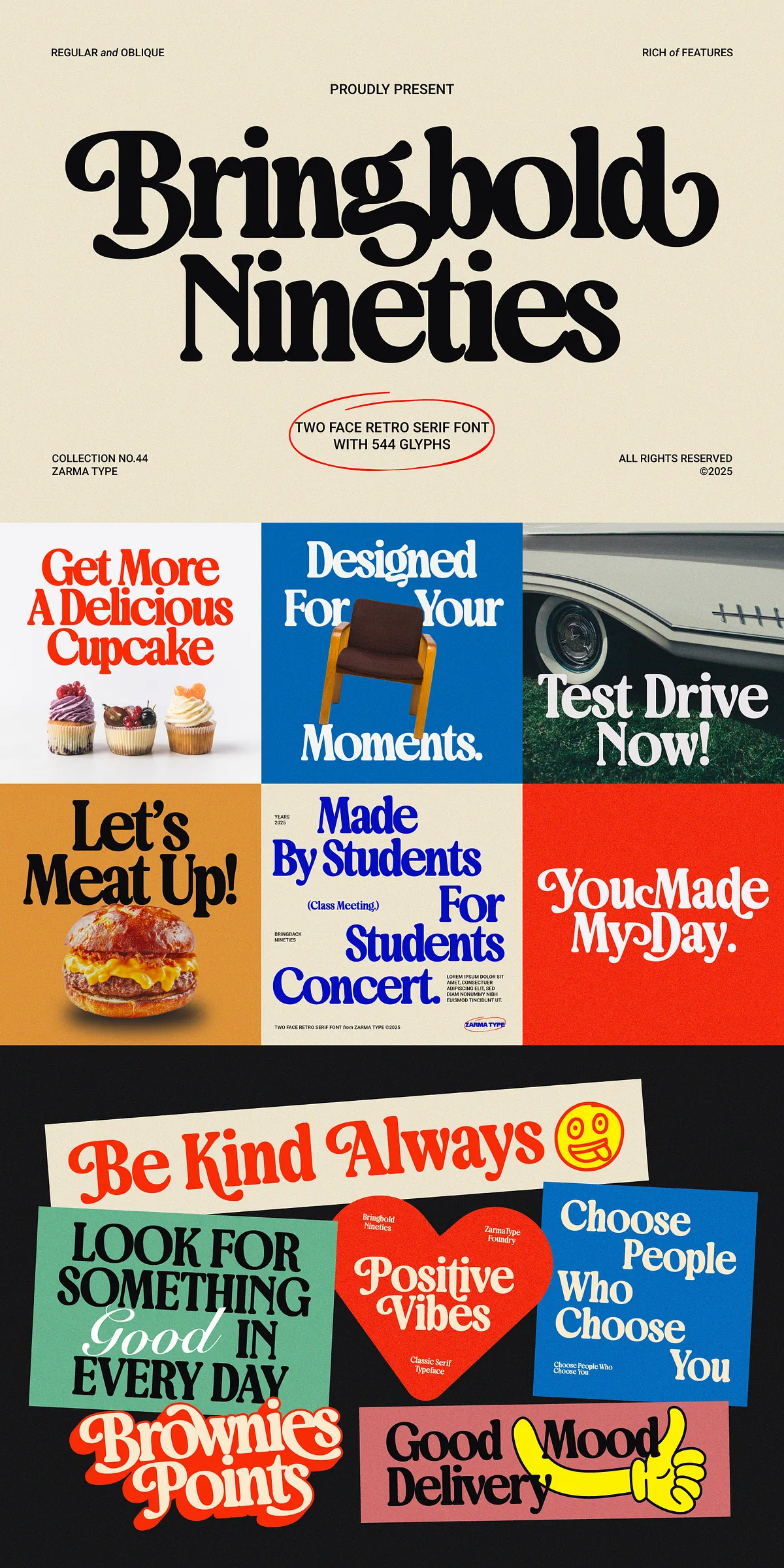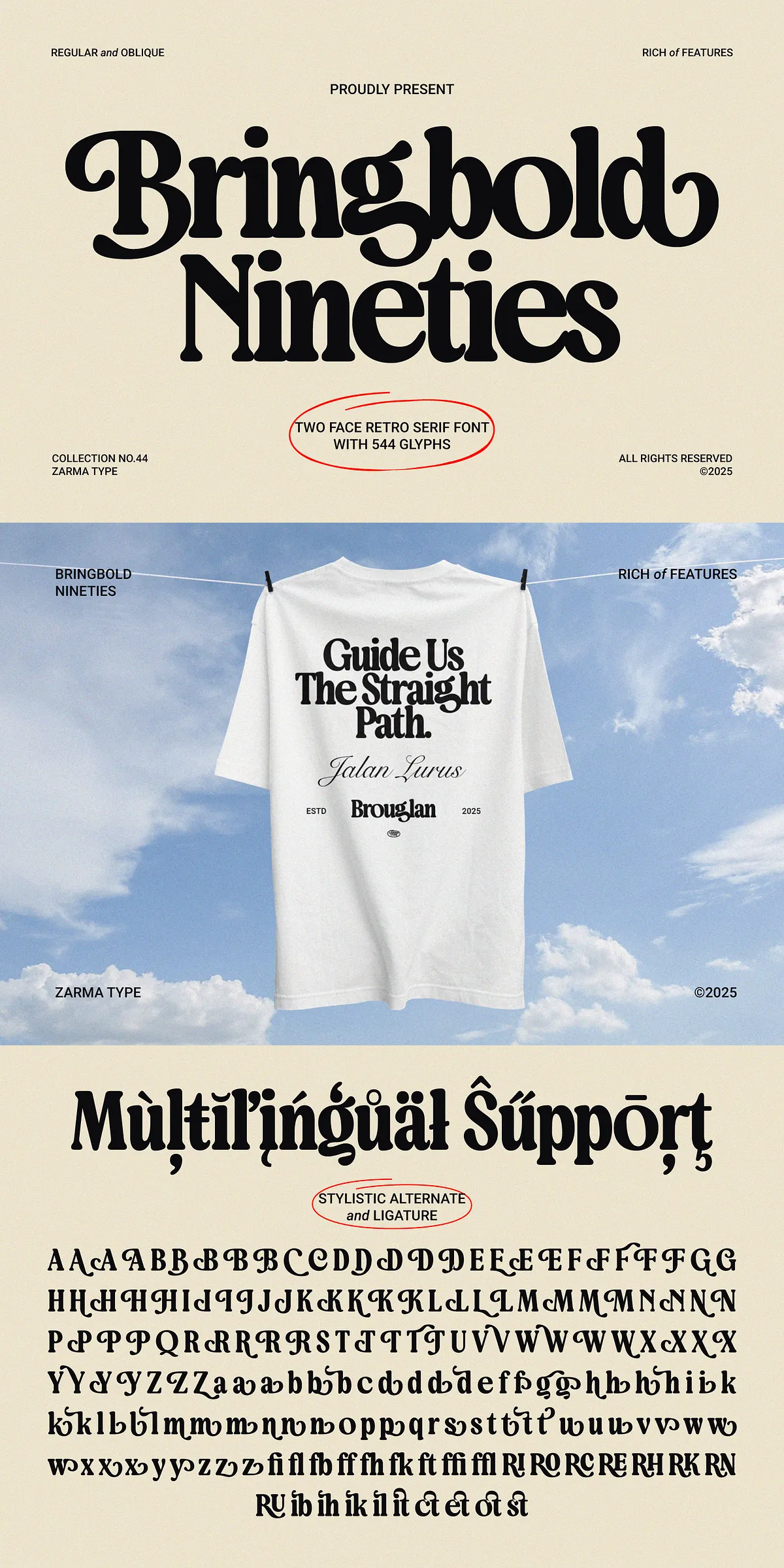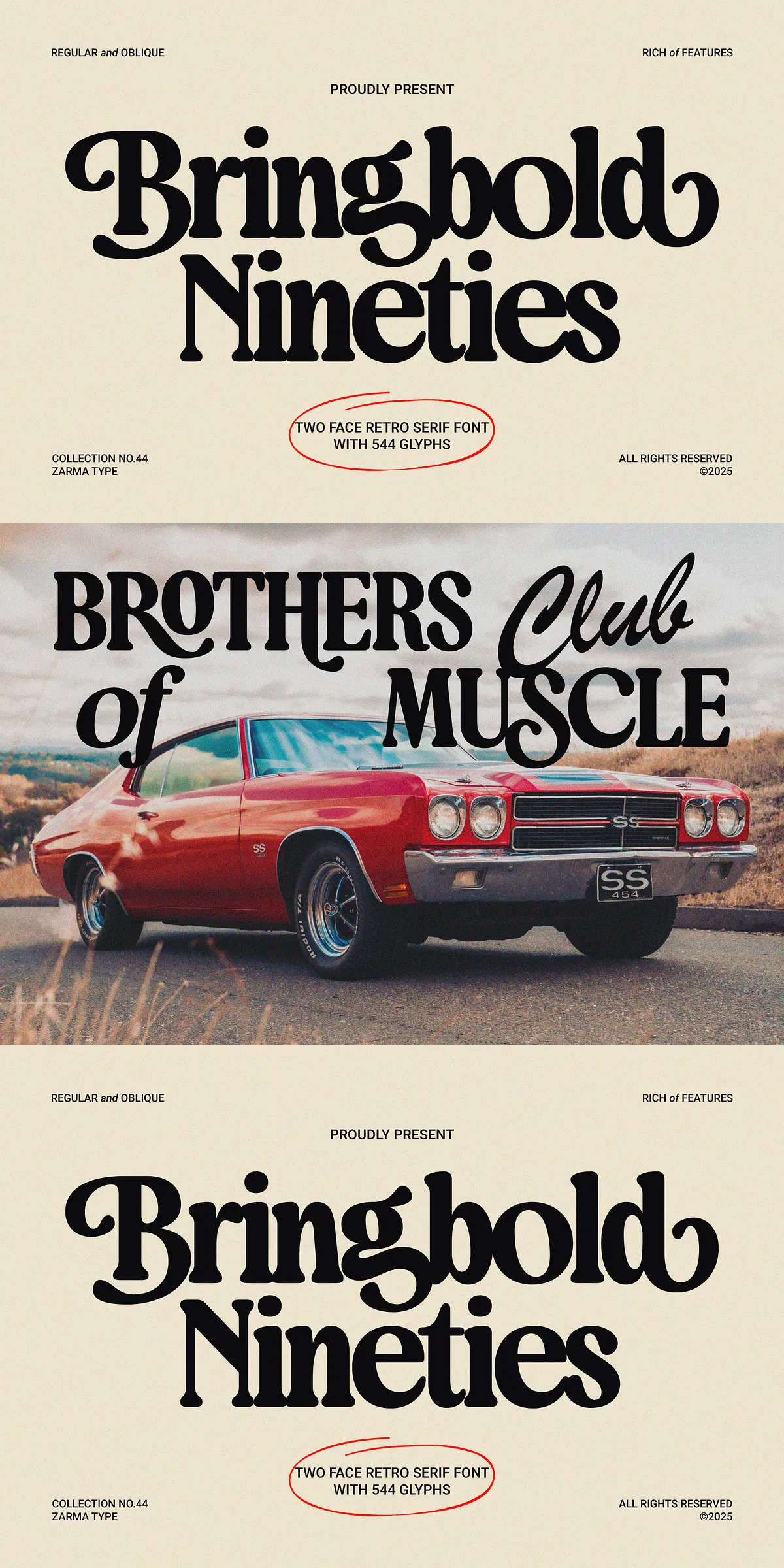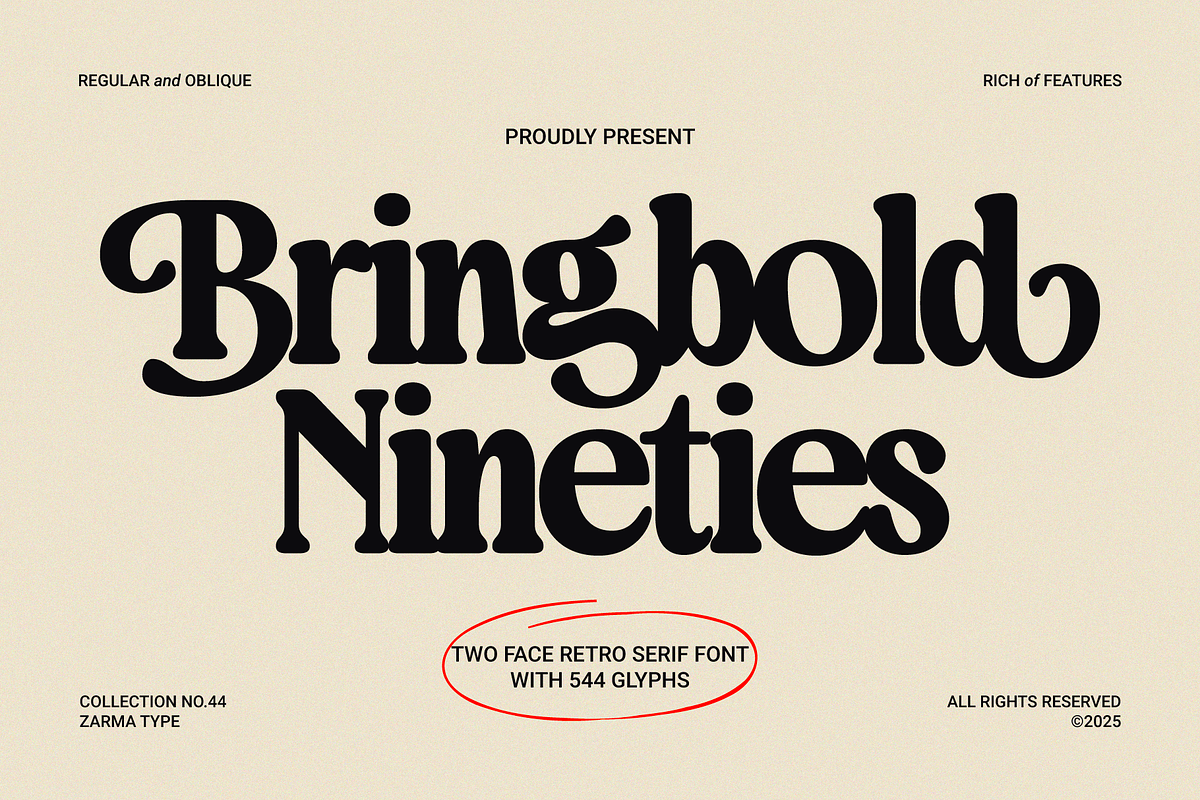
Bringbold Nineties – Serif Font
Step into the golden era of bold statements and confident design with Bringbold Nineties — a masterfully crafted serif font that redefines vintage inspiration for modern creators. This isn’t just a nod to the past; it’s a full-throttle revival of 90s design energy, fused with precision-engineered typography for today’s demanding creative landscape. With sharp, commanding strokes and crisp serif details, Bringbold Nineties delivers maximum visual impact without sacrificing legibility or elegance.
Unleash 90s Energy with Two Dynamic Style Variants
Designers get a powerful choice: Regular for classic, centered strength, and Slanted for dynamic tension and forward motion. Whether you’re building a vintage ad campaign, crafting a bold header, or designing album art that demands attention, these two styles deliver the perfect balance of authenticity and stylistic flexibility.
Craft the Perfect Look with Advanced OpenType Features
• Stylistic alternates let you swap out common characters for unique, personality-rich versions — elevate your type with flair.
• Standard and discretionary ligatures streamline text flow and add subtle sophistication, especially in long-form headlines.
• Decorative swashes add visual punctuation and rhythm, ideal for logos, titles, and standout quotes.
• Contextual alternates ensure natural, organic-looking typography when characters interact — no awkward spacing or disjointed flow.
• PUA-encoded glyphs unlock hidden decorative elements and symbols, giving you complete control over your typographic narrative.
Engineered for Versatility Across Every Creative Arena
Bringbold Nineties isn’t built for just one job. It’s a powerhouse typeface engineered to perform under intense creative pressure and across diverse applications:
Perfect For
• Retro branding & logo design — make your business feel timeless yet fresh.
• Vintage-inspired packaging — create a nostalgic shopper experience on the shelf.
• Editorial headers & title design — command attention in magazines, zines, and digital publications.
• Album cover art — deliver sonic vibes through visual energy.
• Posters, flyers & advertisement design — stand out in crowded visual environments.
• Restaurant & food branding — give your menu a bold, memorable voice.
• Fashion labels & product tags — add a touch of urban 90s edge to your brand identity.
Designed for the Global Creative Studio
Bringbold Nineties speaks the world’s language — literally. The font supports multilingual Latin characters, making it ideal for international branding, global campaigns, and projects that bridge cultures. Accented letters, currency symbols, and special punctuation are all included, ensuring your design remains powerful, consistent, and professional no matter the language.
Complete Technical Features
• Full punctuation set including ellipses, dashes, quotation marks, and fractions.
Bringbold Nineties – More Than a Font, It’s a Creative Catalyst
This is typography with character, presence, and purpose. Every letterform has been refined to contribute to a cohesive, high-impact visual story. Whether you’re designing for print, digital, or physical products, Bringbold Nineties empowers you to create work that feels both nostalgic and urgently current.